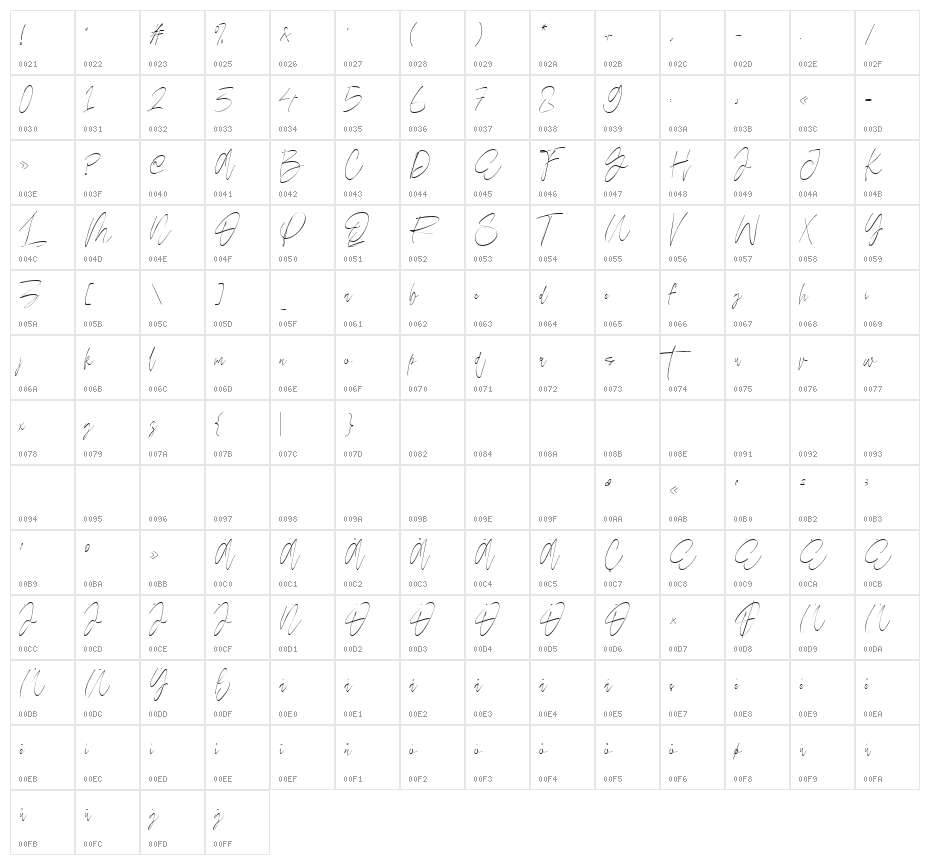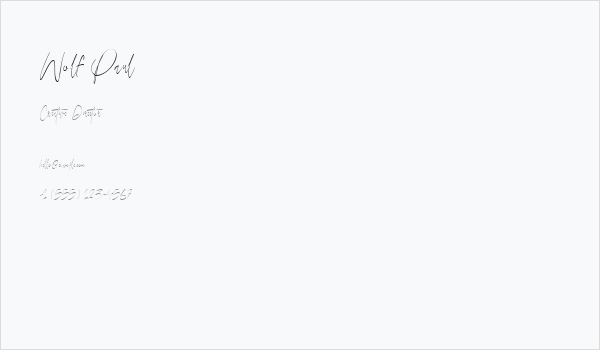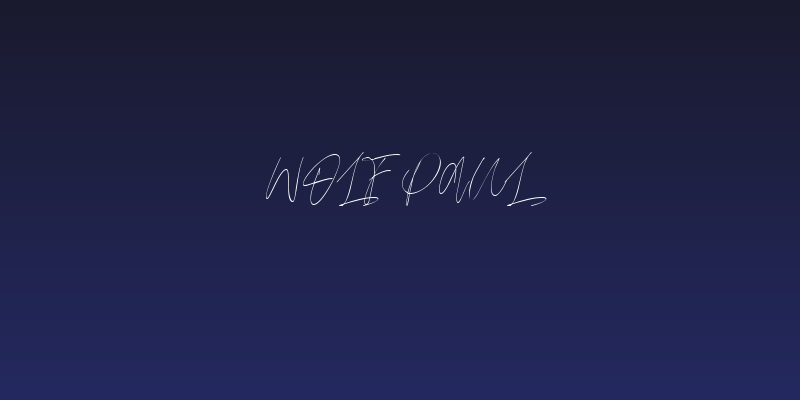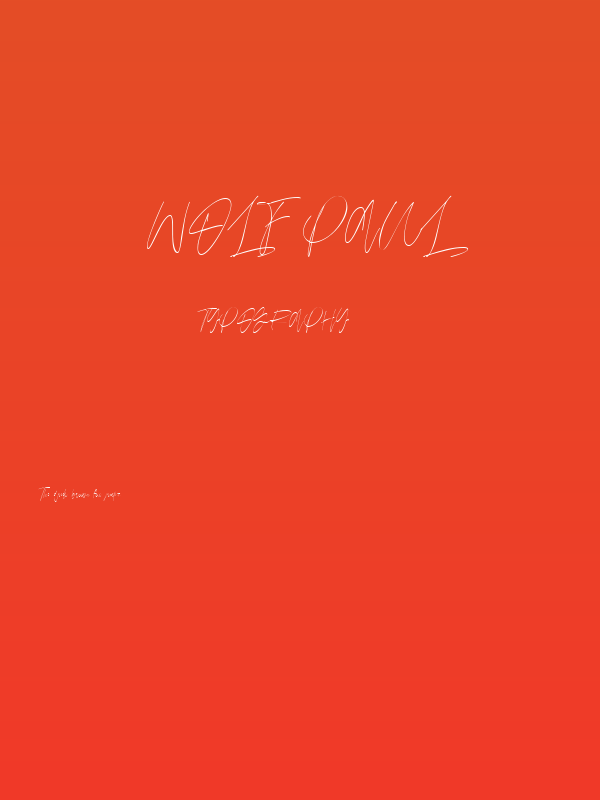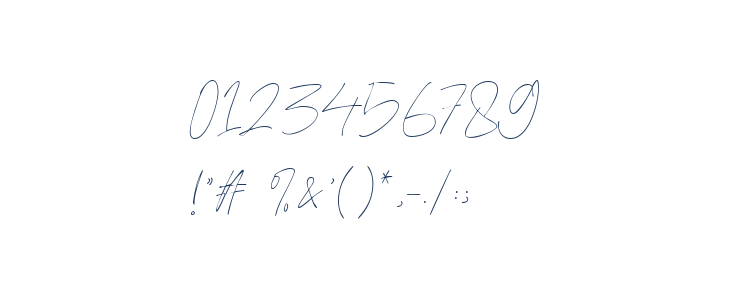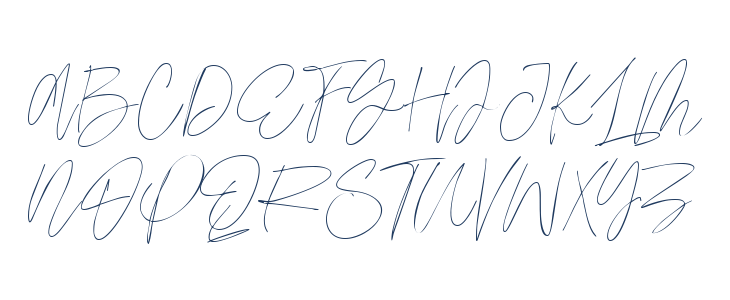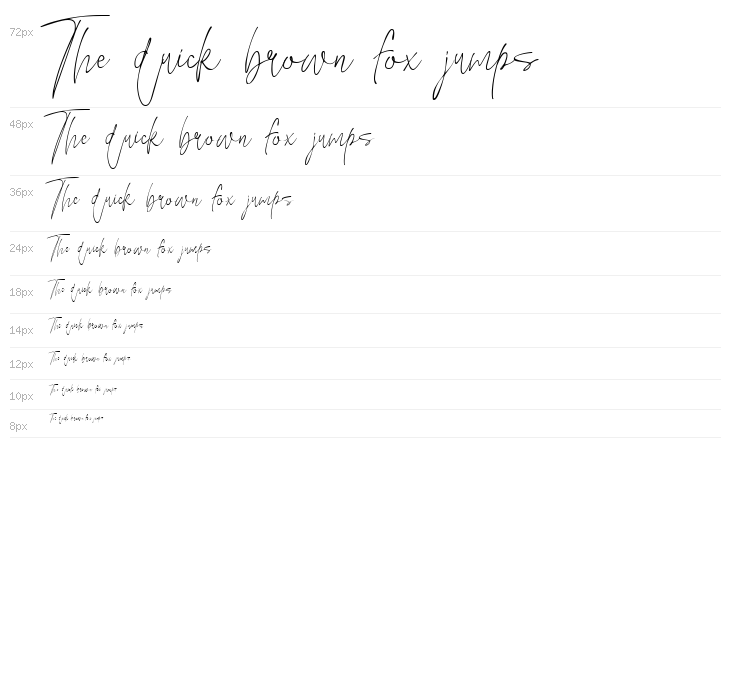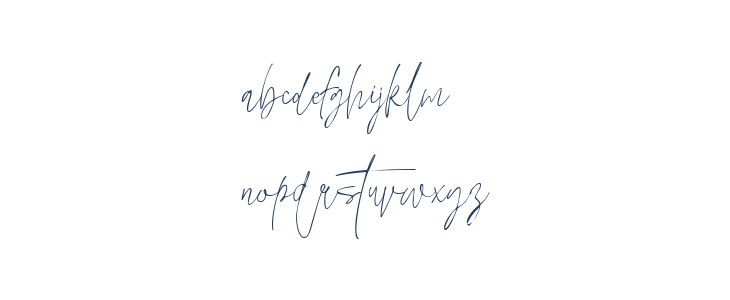
Wolf Paul Font
Wolf Paul Description
A delicate, handwritten script font with a light, airy appearance, featuring thin, flowing strokes that mimic natural cursive handwriting.
| Overall Style | Elegant, Casual, Artistic |
| Use Case | Invitations, Personal branding, Logos, Artistic projects |